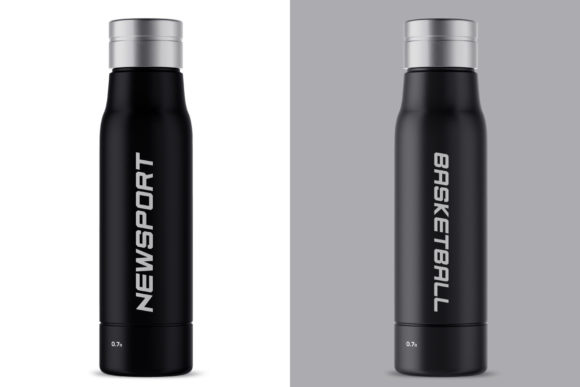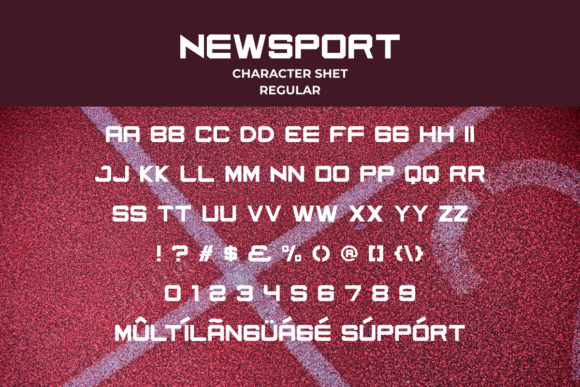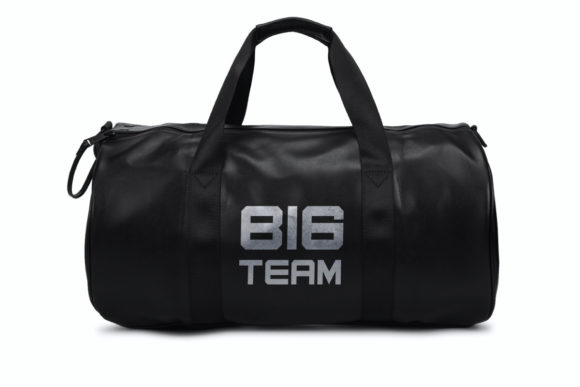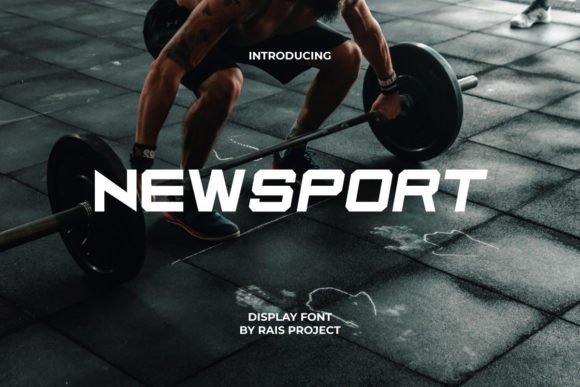
Introduction to Newsport Font
Newsport is a cool, bold and sporty display font.
This font is ideal for writing web designs, business cards, or pretty much anything else that requires a modern touch .